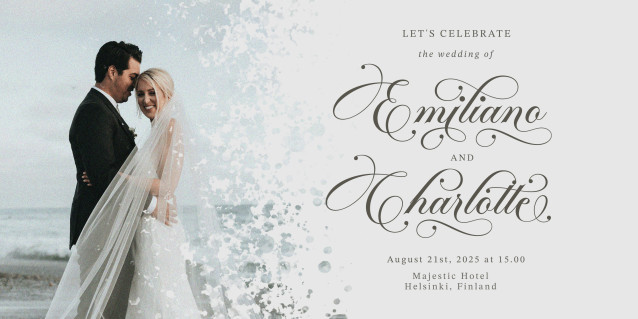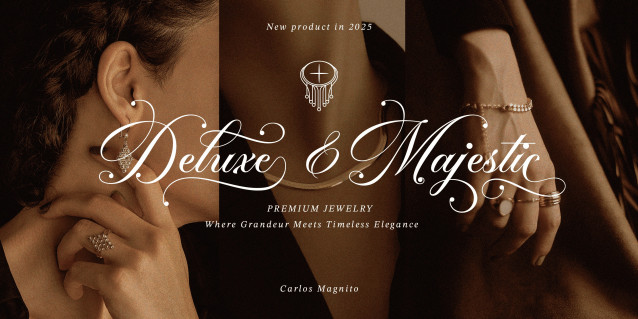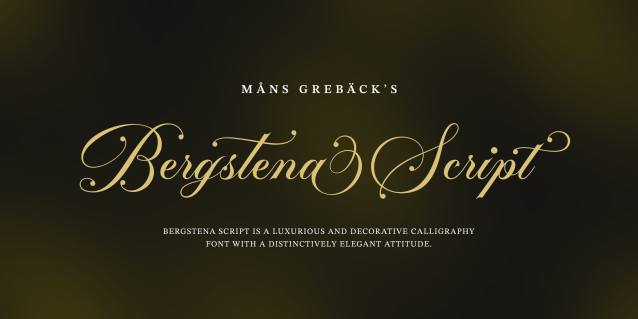
Bergstena Script Font
Bergstena Script Font is a luxurious and decorative calligraphy font with a distinctively elegant attitude. The uppercase letters are finely sculpted with ornate loops and sweeping curves, capturing the essence of formal penmanship and ornamental signage from the past. Meanwhile, the lowercase set flows with smooth rhythm, retaining a soft, legible structure.
This typeface evokes the ambiance of handwritten wedding invitations or a personal letter. Each character feels carefully crafted, as if pulled from the nib of a master calligrapher’s pen.
The font is built with advanced OpenType functionality and guaranteed top-notch quality, containing stylistic and contextual alternates, ligatures and more automatic and manual features; all to give you full control and customizability.
It has extensive lingual support, covering all Latin-based languages, from North Europa to South Africa, from America to South-East Asia. It contains all characters and symbols you’ll ever need, including all punctuation and numbers.